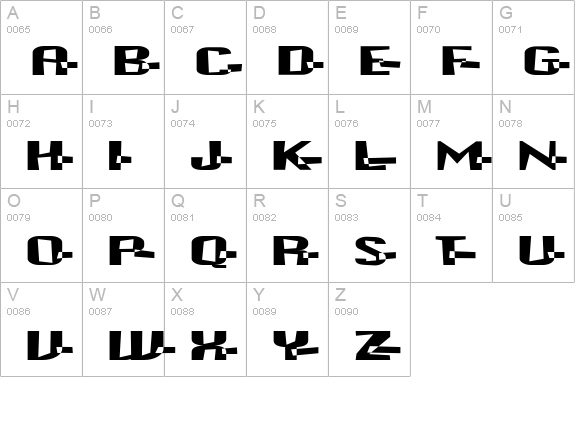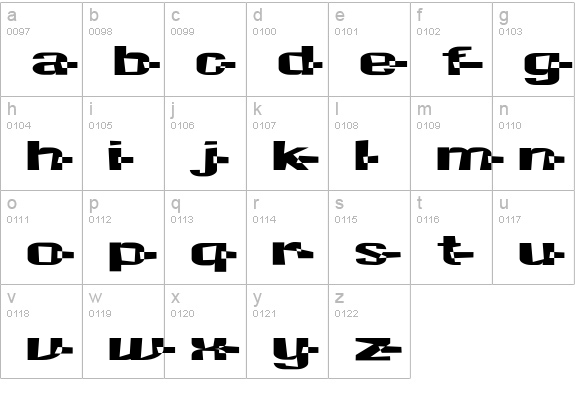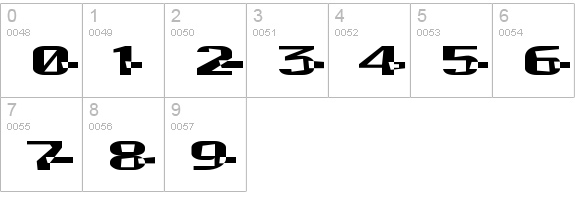
F2FCZYKagoTrans Font Details
F2FCZYKagoTrans font is a captivating and versatile typeface that seamlessly combines elegance with modernity. This font is perfect for a wide range of design projects, from branding and packaging to digital and print media. With its clean lines and distinctive letterforms, F2FCZYKagoTrans effortlessly captures attention and evokes a sense of sophistication. What sets F2FCZYKagoTrans font apart is not only its exceptional design but also its accessibility. This font is freely available to download at FontsMarket.com, allowing designers and creatives to effortlessly enhance their projects without any cost. Whether you're a professional designer or an aspiring artist, this font is a valuable addition to your font library. F2FCZYKagoTrans font offers a wide range of weights and styles, providing endless possibilities for customization. Whether you're looking for a bold and impactful headline or a subtle and refined body text, this font has got you covered. Its versatility ensures that it can adapt to any project's requirements, adding a touch of elegance and professionalism to your work. The legibility of F2FCZYKagoTrans font is exceptional, ensuring that your message is conveyed clearly and effectively. Each character is meticulously crafted, ensuring that the font maintains its visual appeal even at smaller sizes. This attention to detail makes F2FCZYKagoTrans font a reliable choice for both digital and print applications. With its freely available download at FontsMarket.com, F2FCZYKagoTrans font presents an opportunity for designers to elevate their work without any financial constraints. Its stunning design, versatility, and exceptional legibility make it a must-have font for anyone seeking to make a lasting impression. So why wait? Enhance your designs today with F2FCZYKagoTrans font and let your creativity soar.